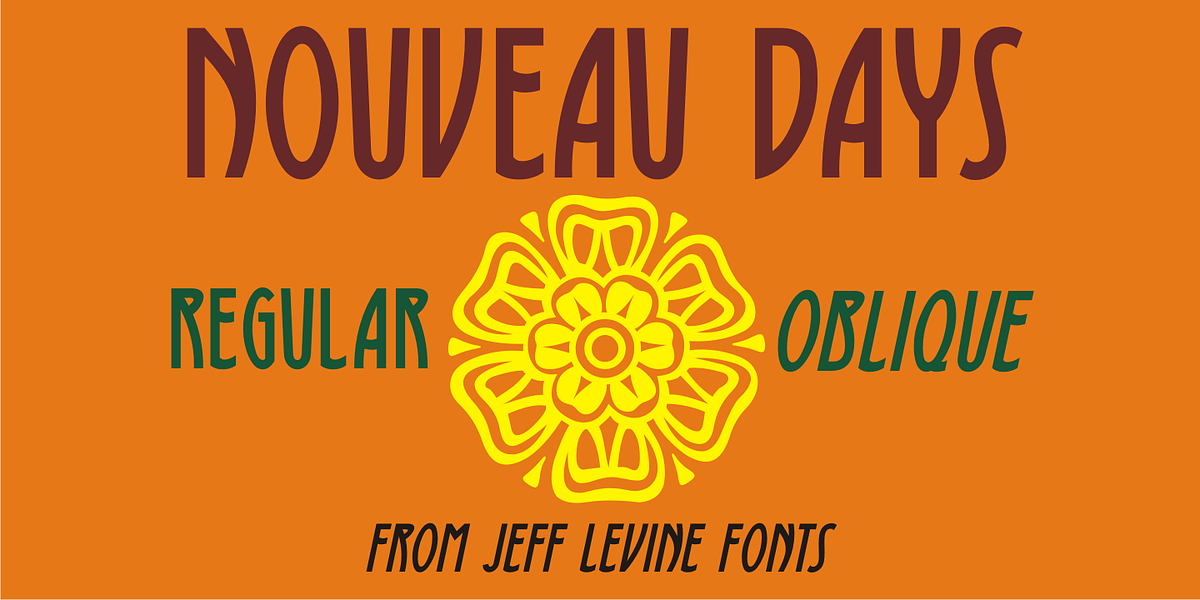
Nouveau Days JNL
The basic design style for Nouveau Days JNL was inspired by the hand lettering on the sheet music cover for “Linger Longer Letty”. This tongue-twisting song title comes from the 1919 musical comedy of the same name.
Some of the characters originally had tiny spur serifs, but they were omitted in the digital version to keep the overall design consistent.